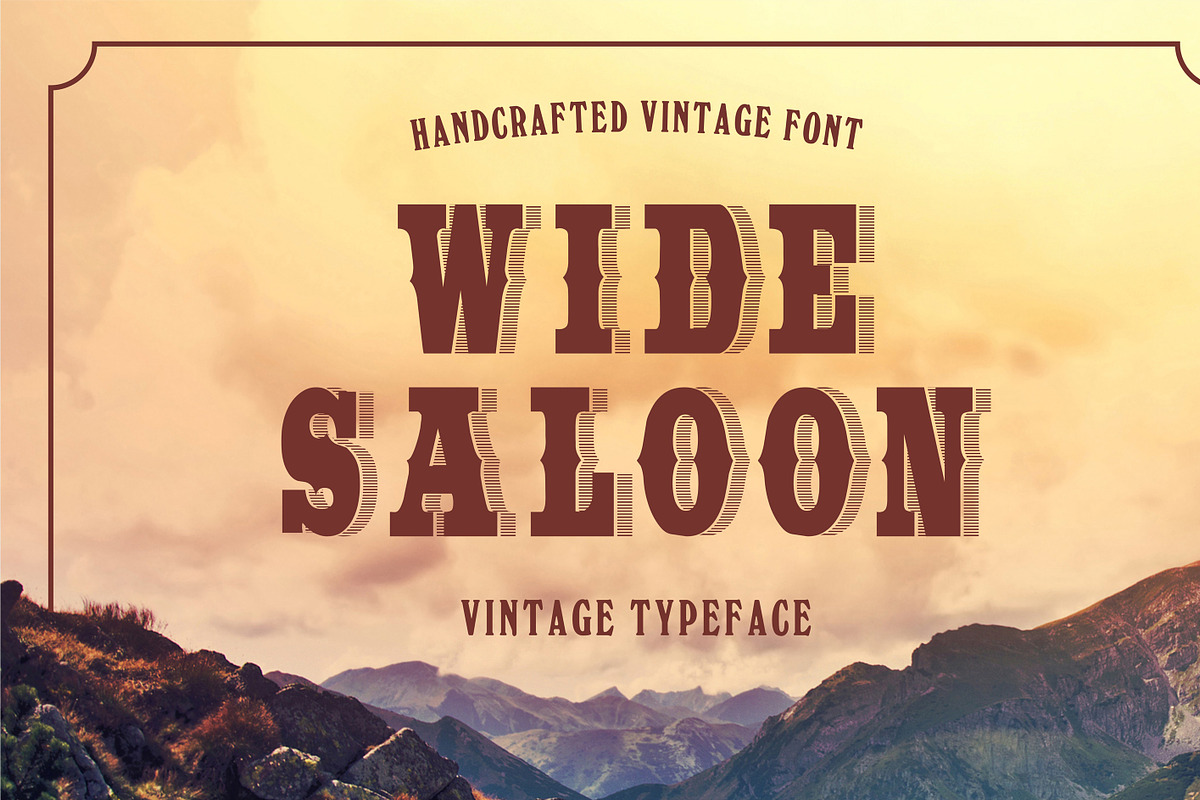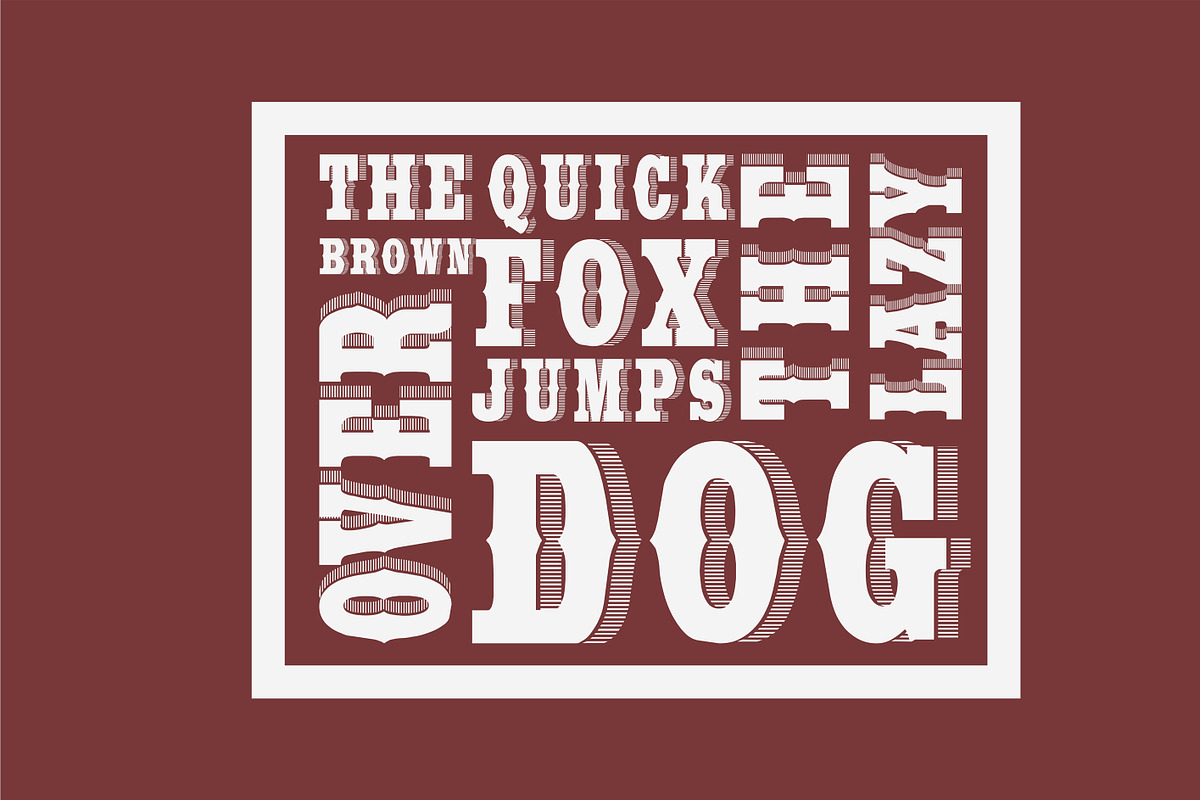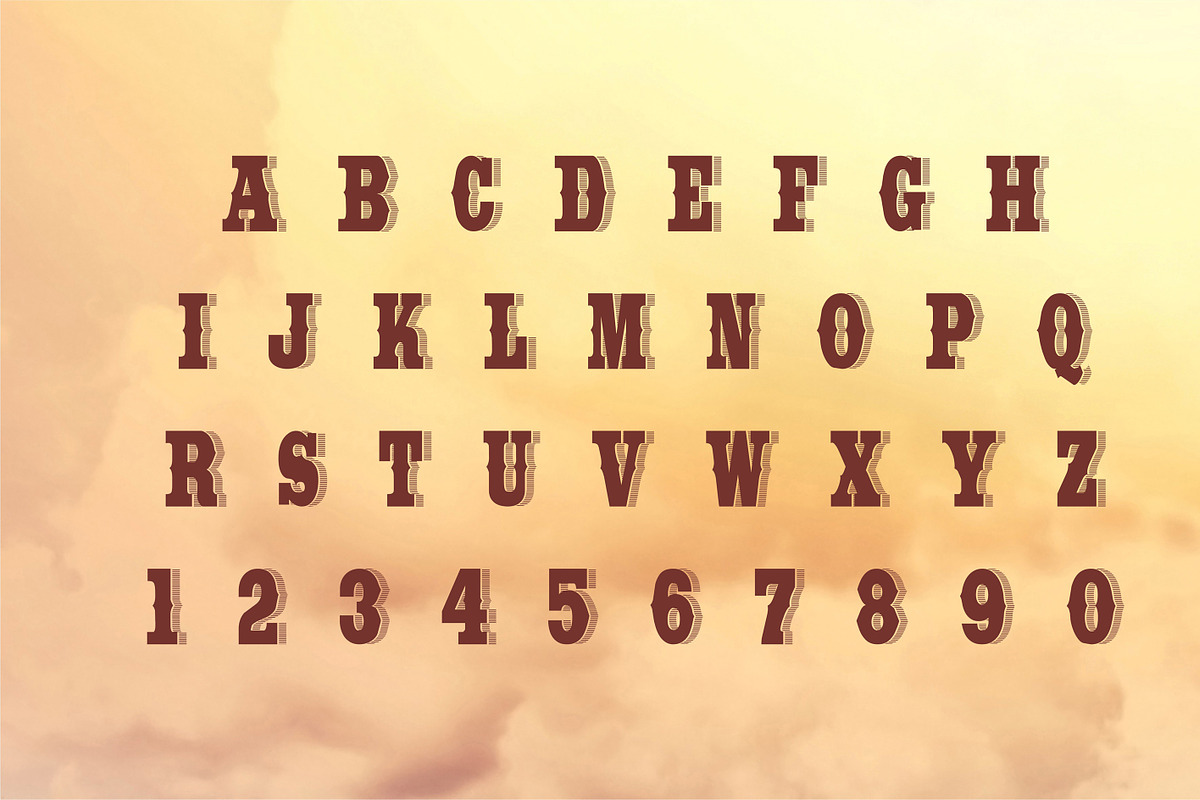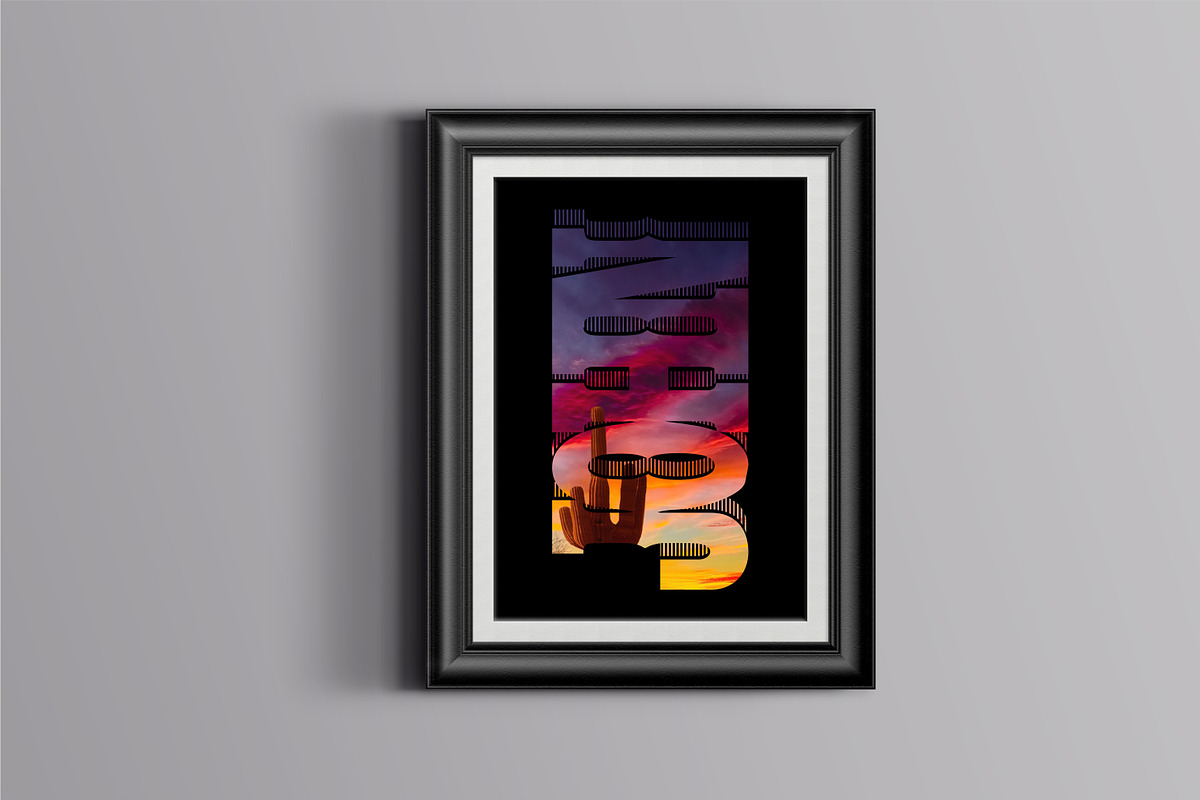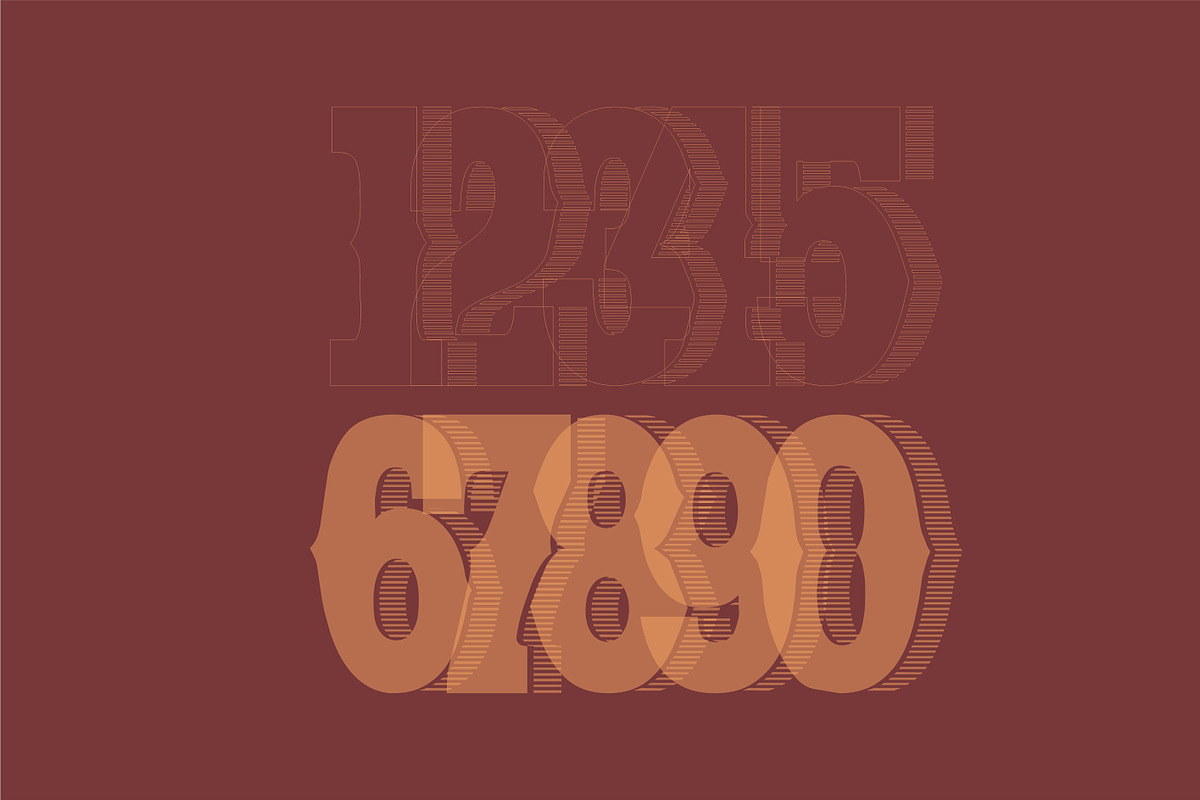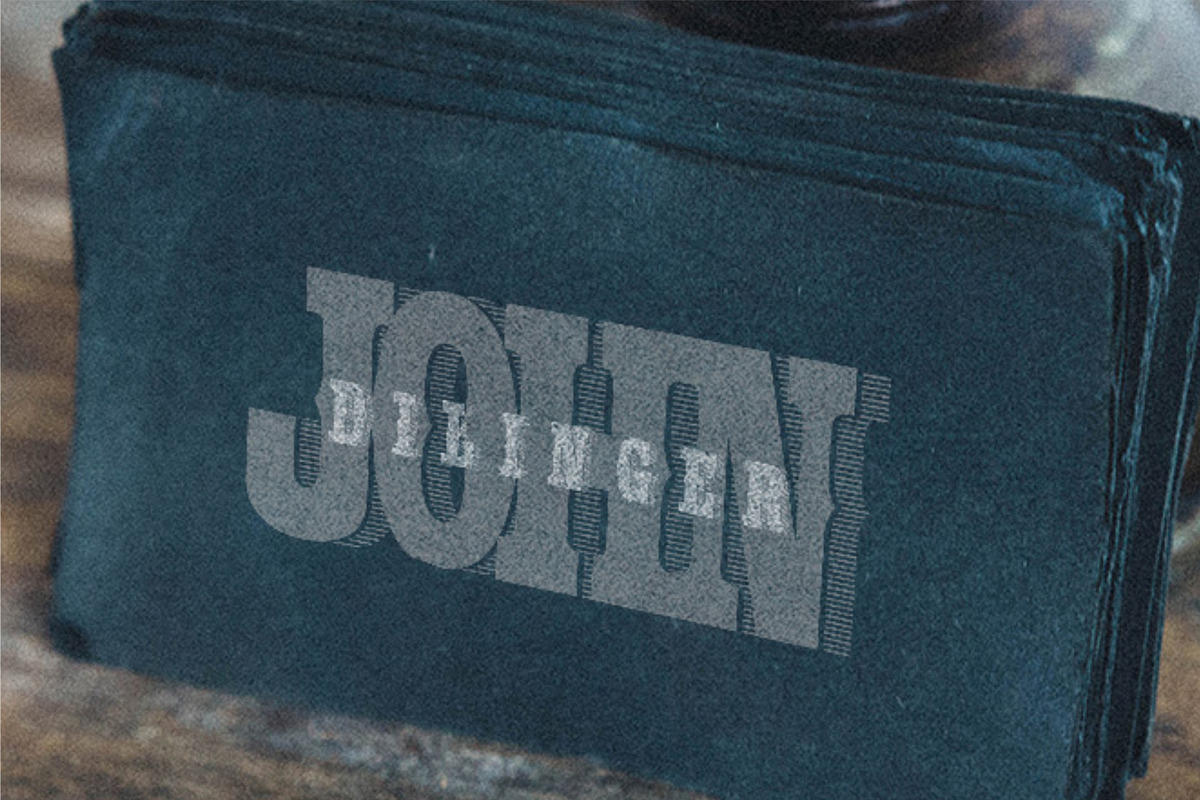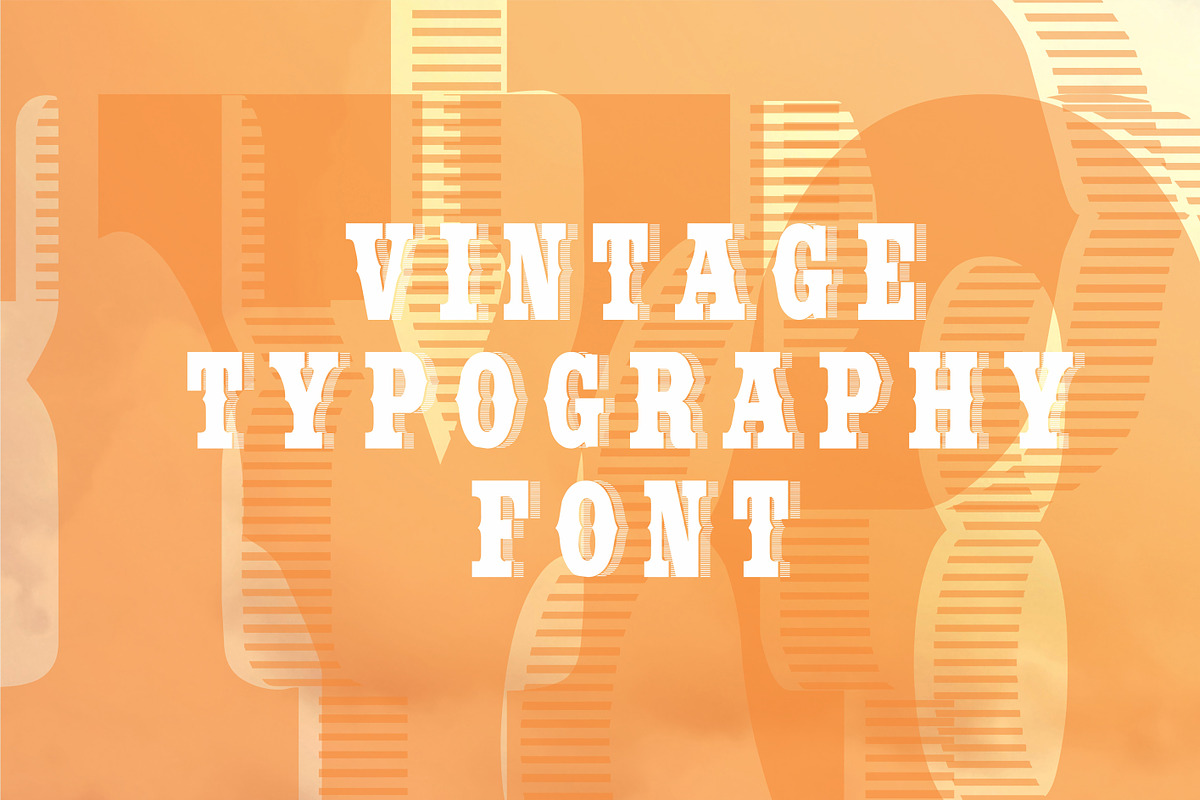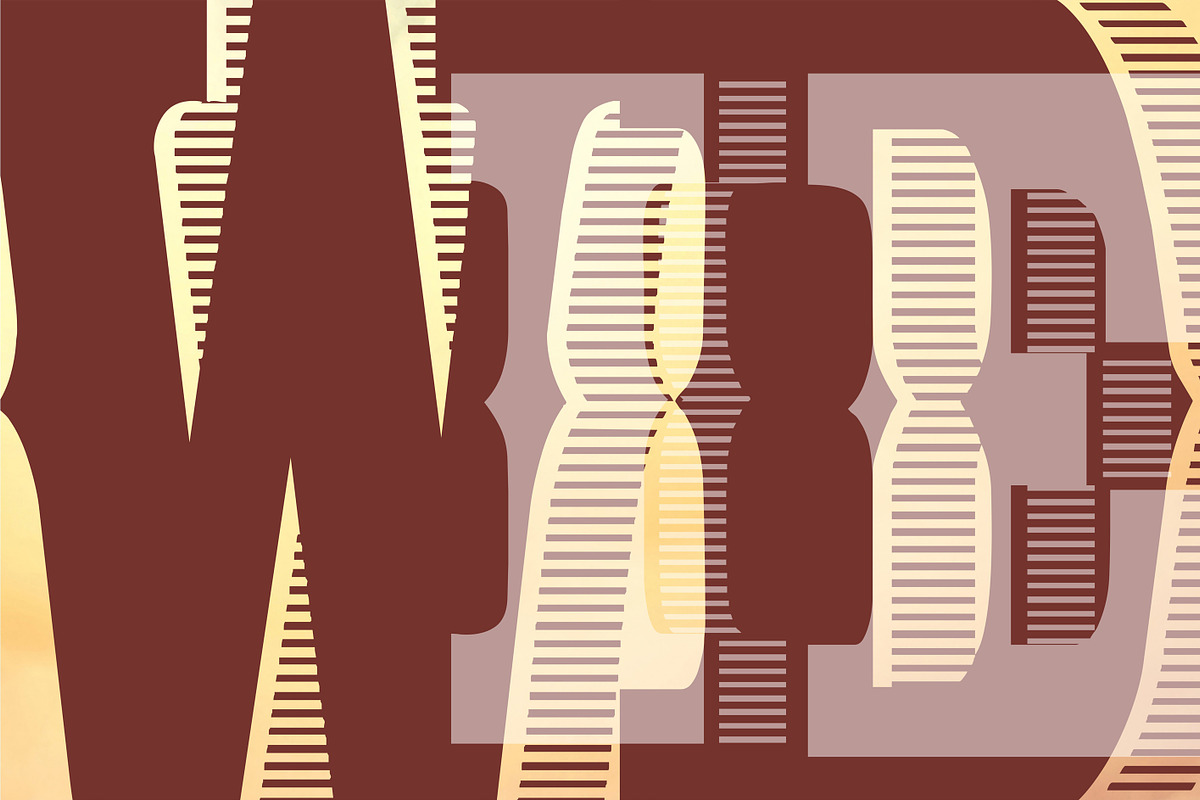
Wide Saloon - Display Font
WideSaloon is a new regular type font with western-like attitude. The letter`s structure is bold and have a right-sided thick shadow created by strikethrough lines. This design is compatible with many other fonts. Please refer to the list of possible uses we have created to help designers with inspiration and add your idea in comments section below.
Short list of possible uses for inspiration:
Book covers or inside chapters section heading
Posters or postcards design
Party decorations and congratulation cards
Invitation letters and business envelopes
Text headings and graphic themes designs